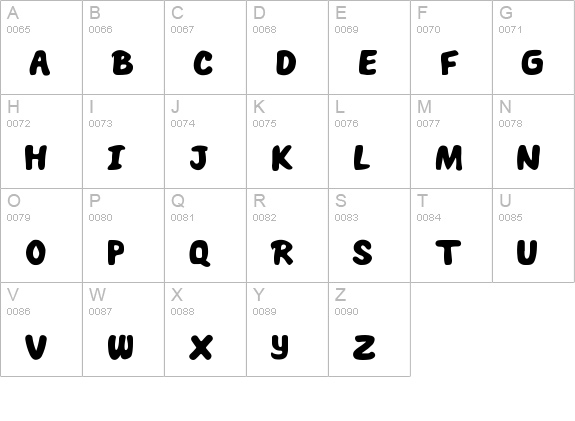
THE JACK MARRON Font Details
THE JACK MARRON is a free for personal use font in the Fancy > Cartoon category, designed by Fana Studio. It has been downloaded 122 times and is available for Windows, Mac and Linux.
Introducing THE JACK MARRON font, a stunning display typeface that exudes elegance and sophistication. With its unique blend of modern and vintage elements, this font is perfect for adding a touch of class to your designs. THE JACK MARRON font features beautifully crafted characters with a stylish flair that will make your projects stand out.